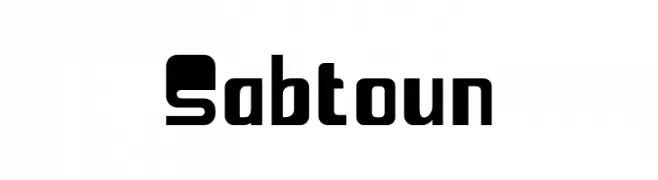
A bold, modern font with clean lines and uniform stroke width.
A bold, geometric font with rounded edges, ideal for modern designs.
A bold, modern font with clean lines and a structured appearance.
A clean, modern sans-serif font with a semi-bold weight and excellent legibility.
A bold, modern font with thick, uniform strokes and a strong presence.
A bold, rounded font with a modern and impactful style.
A bold, condensed font with rounded edges for impactful designs.